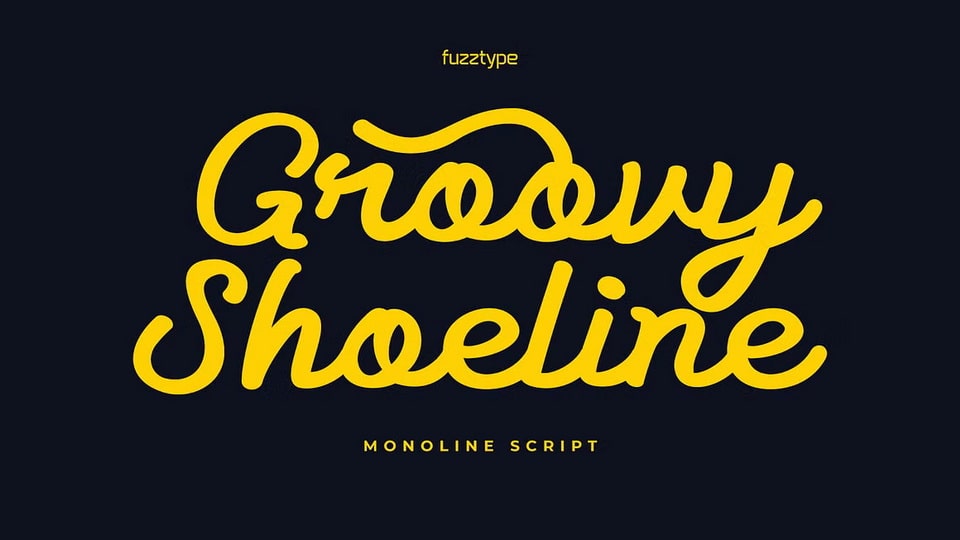
Download Groovy Shoeline font, a bold and bouncy monoline script typeface that brings a perfect blend of retro groove and modern elegance.
Designer: Fuzztype